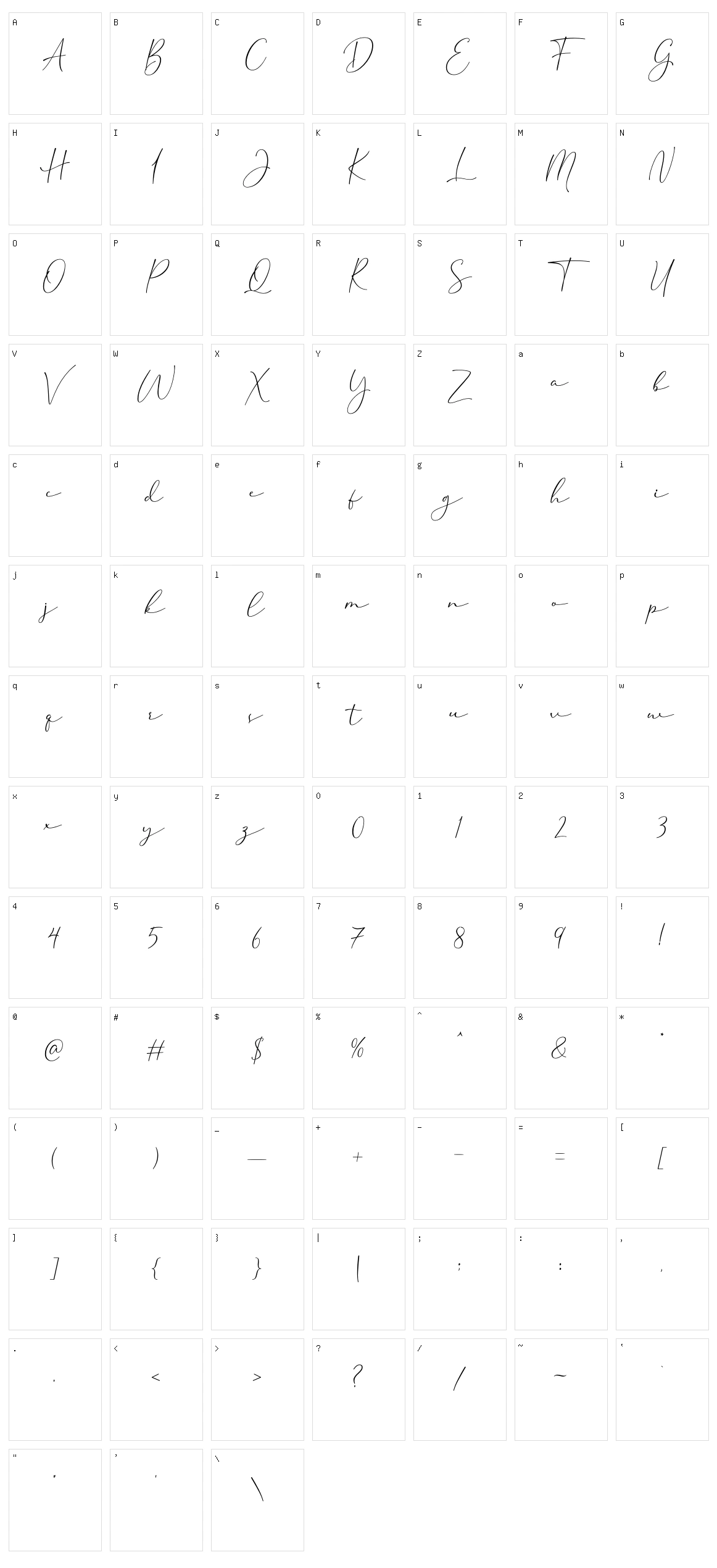
The free font Cherolina is carefully designed by Almarkhatype, showcasing a thoughtful balance of creativity and usability and falls under the Script font style. When you download the ZIP file, it contains only 1350.52 KB of font files, making it lightweight and quick to download. Please review the license details below to understand permitted usage and distribution rights. If license information is not available, we recommend using this font for personal projects only or contacting the author directly for commercial usage permissions.
Cherolina Font By Almarkhatype Studio